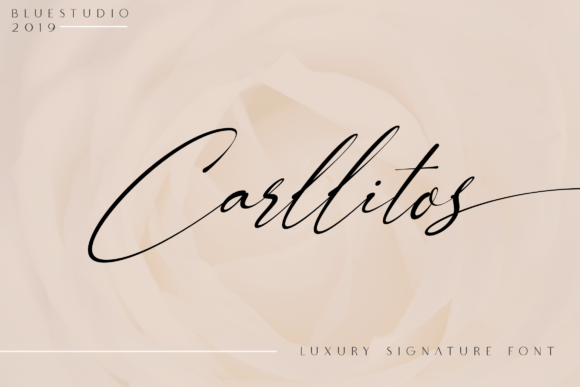
Carllitos Font
Dive into the world of elegance and sophistication with Carllitos Font, a breathtaking handwritten font that exudes creativity and warmth. Step into a realm where your words dance with grace, leaving a lasting impression on every reader.
Carllitos Font is more than just a collection of letters; it's an artistic expression that captures the essence of modern calligraphy. Its light and airy feel adds a touch of femininity and charm to your designs, making them stand out with effortless beauty. Whether you're crafting invitations, logos, blog posts, or social media graphics, Carllitos Font will transform your words into captivating works of art.
With its contemporary and authentic vibe, Carllitos Font has the power to make your designs shine. It's a versatile font that adapts seamlessly to a wide range of projects, from whimsical wedding invitations to sleek business cards. Its organic flow and elegant curves add a touch of personality and uniqueness to any project, leaving a lasting impression on your audience.